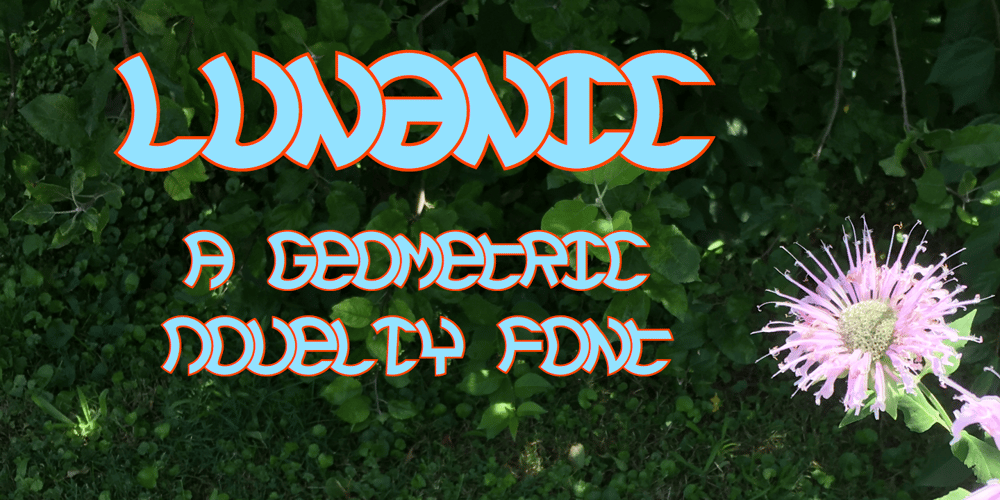
Lunanic Font Family was designed by Robert Schenk and published by Ingrimayne Type. Lunanic contains 12 styles and family package options. Lunanic is a geometric novelty typeface family with a touch of graffiti. The letters are formed from a circle with a notch or nick taken out, a shape that reminds me of a partial lunar eclipse. Half of the family have the nick on the left and half on the right. The faces are monospaced and so tightly spaced that there is no space between most of the letters so the filled styles cannot be used alone without tweaking. There are several ways to tweak them to make them readable: adjacent letters can be colored differently, the characters spacing can be increased, or an outlined style can be layered on top of the filled letters. The family does not have a true lower case. Most of the characters in the lower-case slots are alternates for those on the upper-case keys and they can be mixed in whatever way the user finds best. The family has twelve members: two orientations with three weights each and each of these six has an outline style to go with it.Lunanic is fun, bizarre, weird, and obviously a decorative display font.